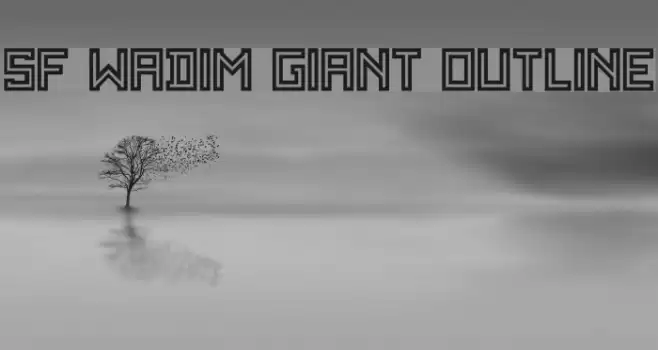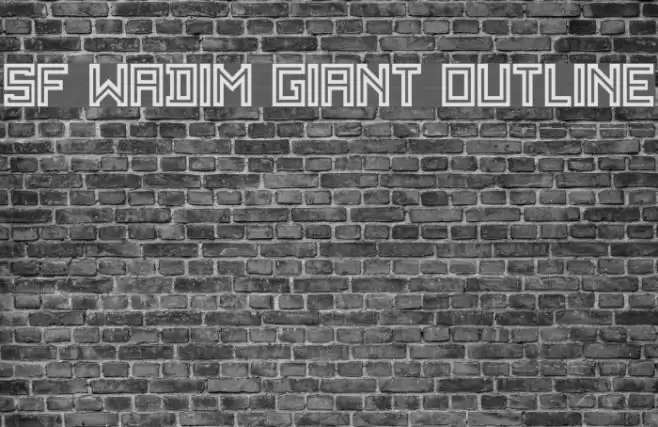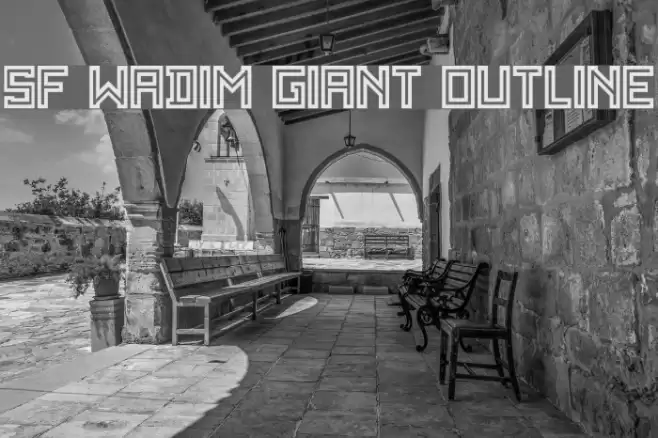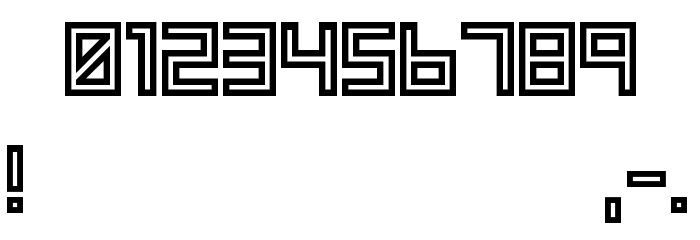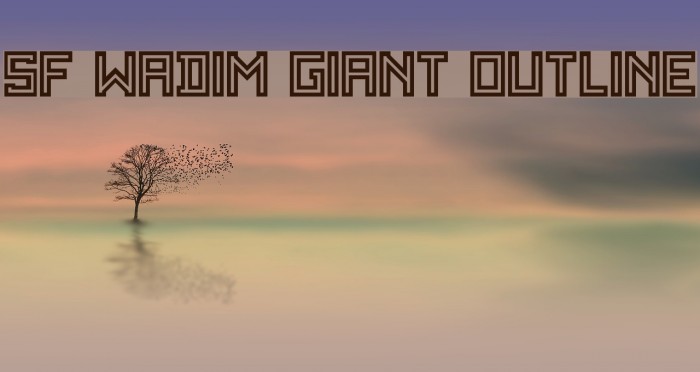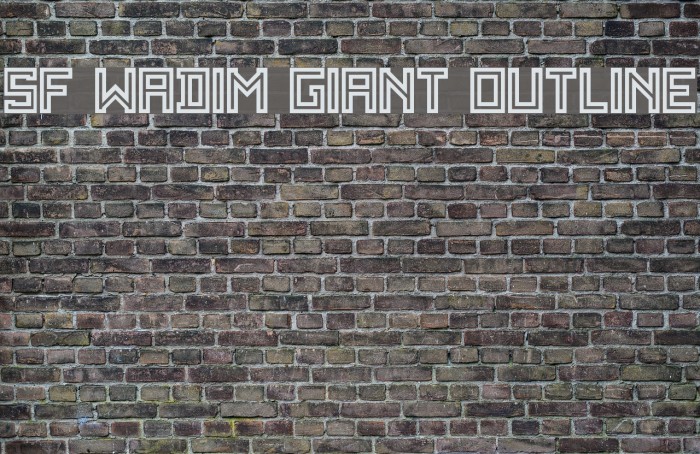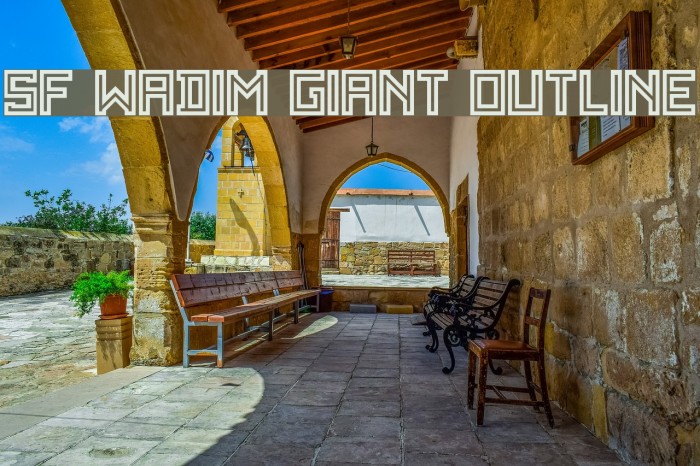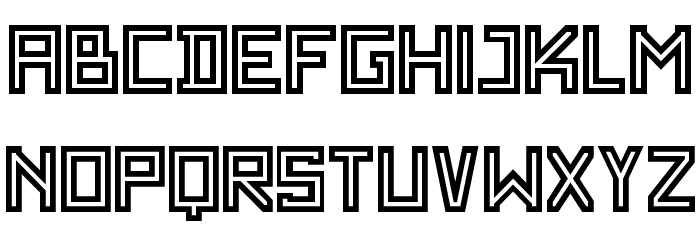
This font features a bold, geometric outline style with a futuristic and industrial feel. The characters are constructed with thick, uniform lines that create a striking, three-dimensional effect. Each letter and number is designed with precision, emphasizing sharp angles and straight edges, giving it a modern and technical appearance. The uppercase and lowercase letters maintain a consistent height, contributing to a cohesive and structured look. The font's unique outline design makes it highly suitable for attention-grabbing headlines and titles. Its distinct style is both eye-catching and versatile, ideal for projects that require a bold and impactful visual statement.
A bold, geometric outline font with a futuristic and industrial style from Uncategorized fonts.
- Proposed Projects: Ideal for branding, posters, video game graphics, and sci-fi themed projects.